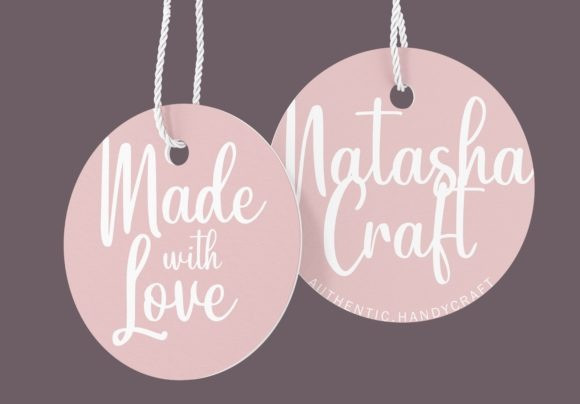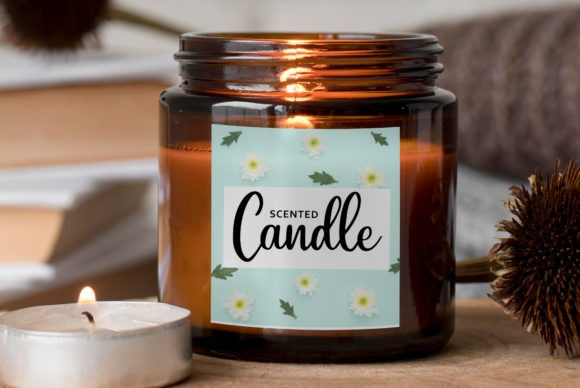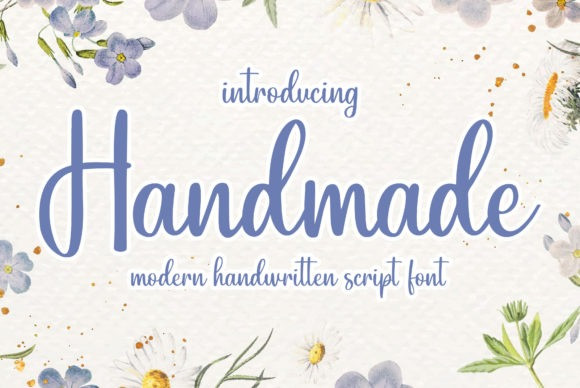
Handmade Modern Script Font
Handmade Modern Script Font is a handwriting script font. It is suitable for craft artists to elevate their work into beautiful masterpieces. Handmade is also great for graphic designers who seek sweet font for their work. Handmade including uppercase, lowercase, standard punctuation, and numbers.